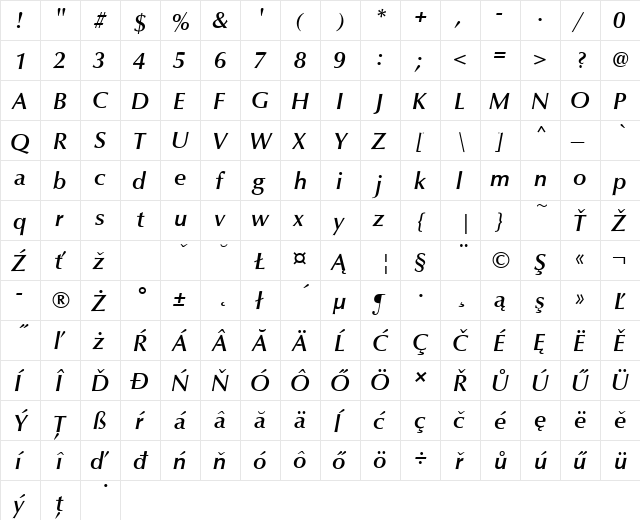
URWClassicoTEEMed Italic
Design Context for URWClassicoTEEMed Typeface
URWClassicoTEEMed wears its vintage influences proudly, with letterforms that recall mid-century signage, classic packaging, and nostalgia-driven design. The dynamic lean of this cut emphasises speed and emphasis in any layout.
Ideal for diner signage, record shop branding, 70s/80s-themed projects, and heritage product labels.
Font Pairing: Combine URWClassicoTEEMed with a simple slab or neutral sans — period-accurate companions reinforce the vintage feel without competing for attention.
Pro Tip: Lean into URWClassicoTEEMed's period character by pairing it with aged paper textures, muted colour palettes, and vintage illustration styles.